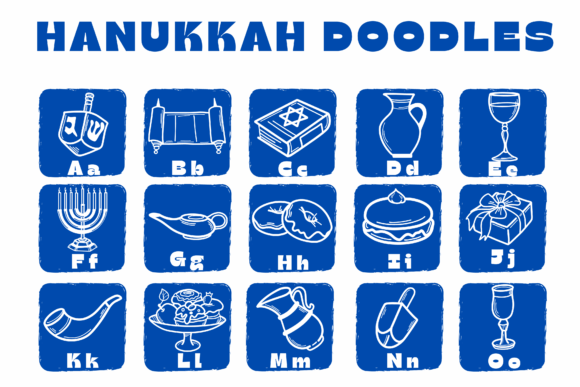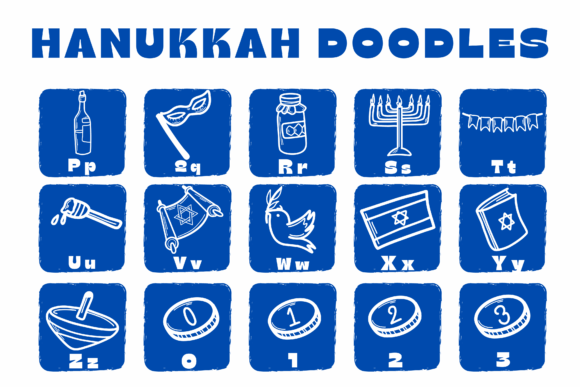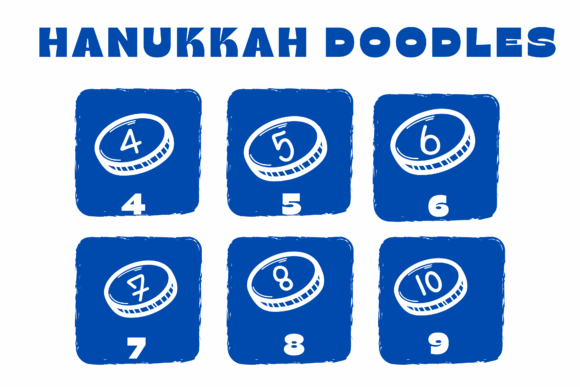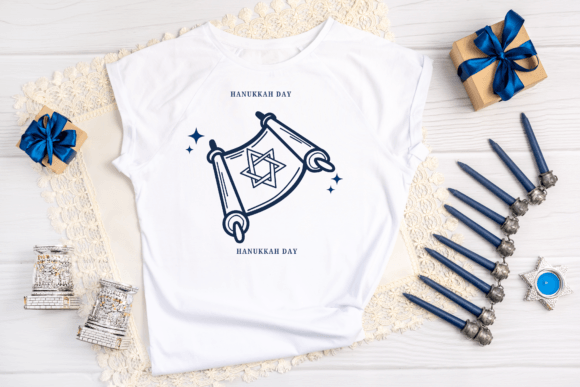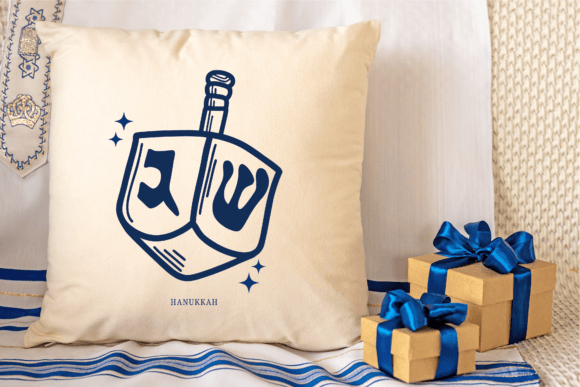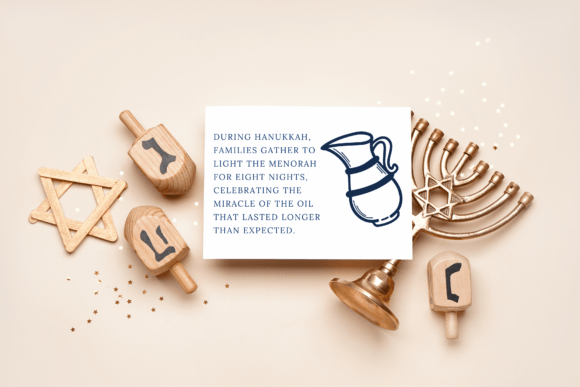
Hanukkah Doodles Font: Add a Festive Touch to Your Holiday Projects
Are you looking for a fun and creative way to add a Hanukkah touch to your holiday projects? Look no further than the Hanukkah Doodles Font! This delightful dingbat font features a collection of cute symbols and images related to Hanukkah, perfect for designers, crafters, and anyone looking to add a festive flair to their work.
What is Hanukkah Doodles Font?
Hanukkah Doodles is a unique dingbat font that offers a wide range of Hanukkah-themed symbols and images. From menorahs and dreidels to latkes and sufganiyot (jelly donuts), this font has everything you need to create fun and festive projects. Each symbol is carefully designed to be cute and engaging, making it perfect for use in holiday cards, invitations, crafts, and more.
Features of Hanukkah Doodles Font
- Hanukkah-themed symbols and images: The font features a wide range of Hanukkah-themed symbols and images, including menorahs, dreidels, latkes, sufganiyot, and more.
- Cute and engaging design: Each symbol is carefully designed to be cute and engaging, making it perfect for use in holiday projects.
- Dingbat font: The font is a dingbat font, which means that each symbol can be used as a separate character, making it easy to use in your projects.
Uses for Hanukkah Doodles Font
The Hanukkah Doodles Font is perfect for a wide range of holiday projects, including:
- Holiday cards and invitations: Add a festive touch to your holiday cards and invitations with the Hanukkah Doodles Font.
- Crafts and DIY projects: Use the font to create fun and festive crafts, such as holiday decorations, gift tags, and more.
- Social media graphics: Add a Hanukkah touch to your social media graphics, such as Facebook posts, Twitter headers, and more.
- Web design: Use the font to create festive and engaging web pages, such as holiday-themed landing pages and more.
Tips for Using Hanukkah Doodles Font
Here are a few tips for using the Hanukkah Doodles Font:
- Experiment with different sizes and colors: Try out different sizes and colors to see what works best for your project.
- Combine with other fonts: Combine the Hanukkah Doodles Font with other fonts to create a unique and engaging look.
- Use in combination with images: Use the font in combination with images to create a fun and festive design.
The Hanukkah Doodles Font is a fun and creative way to add a Hanukkah touch to your holiday projects. With its wide range of cute and engaging symbols and images, this font is perfect for designers, crafters, and anyone looking to add a festive flair to their work. So why not give it a try and see what you can create?